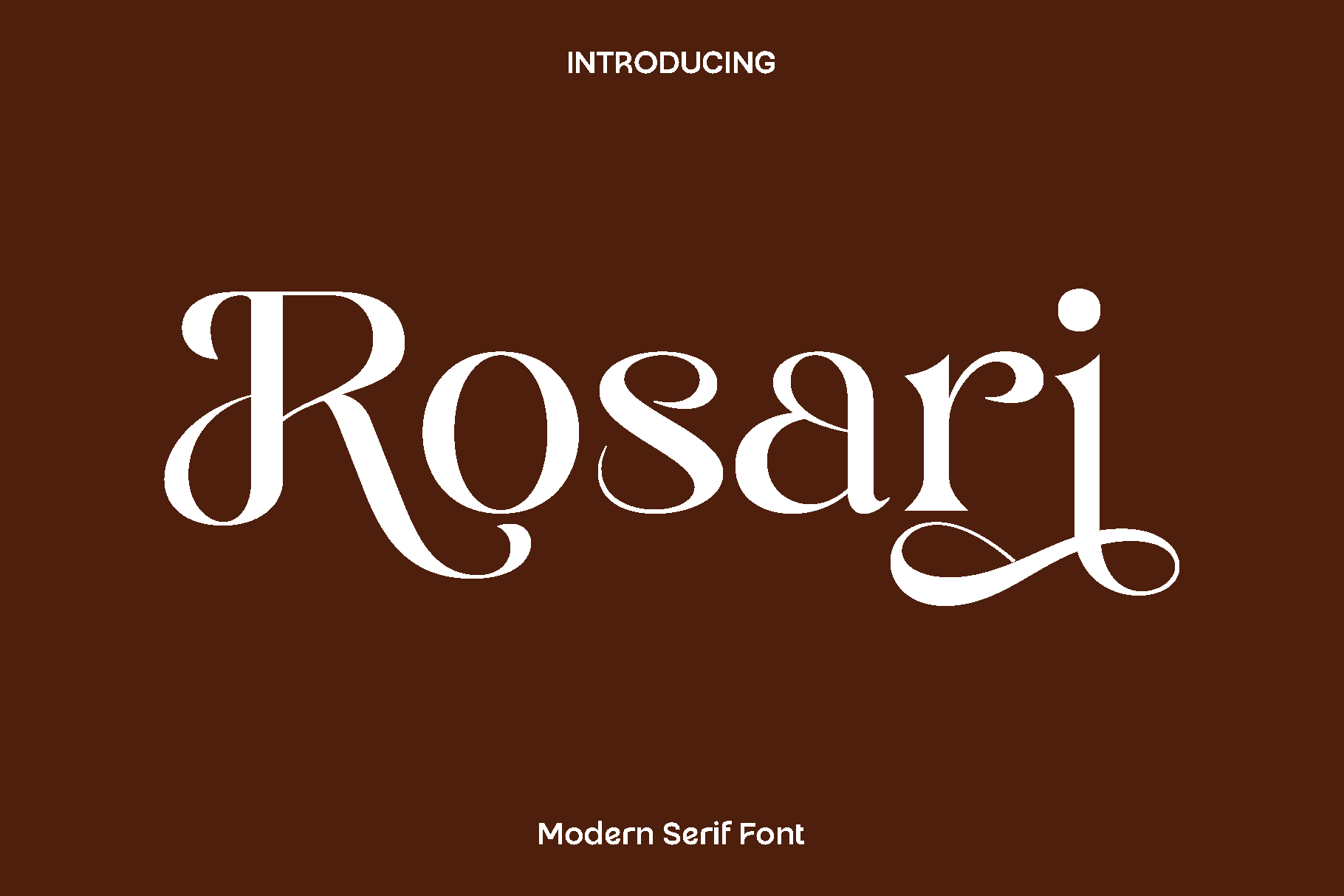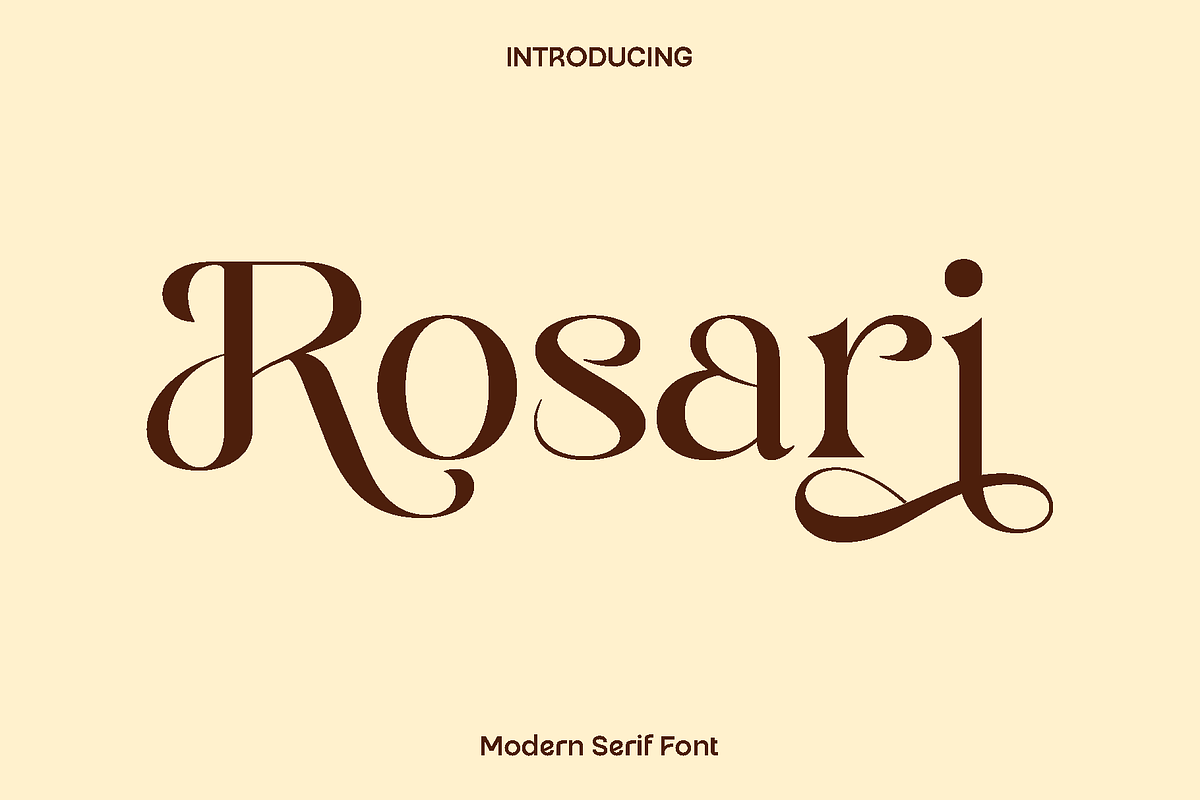
Rosari Serif Font
Rosari is an elegant and versatile font designed to bring style and sophistication to a wide range of creative projects. Its carefully crafted letterforms combine readability with aesthetic appeal, creating a timeless look that feels modern yet classic. Rosari’s clean lines and balanced proportions make it ideal for both large display text and subtle typographic details, offering designers the flexibility to use it in many contexts.
This font excels in branding, logo design, book and magazine layouts, blog headers, posters, advertisements, and inspirational quotes. Its graceful style ensures that your designs are polished and professional while maintaining a friendly and approachable personality. Rosari’s versatility allows it to adapt beautifully to digital and print applications, making it a reliable choice for both creative and commercial projects.
Rosari Font Features:
• Uppercase and lowercase letters
• Numerals included
• Functional punctuation and symbols
• Multilingual support
Rosari combines beauty, flexibility, and functionality, making it an essential addition to any designer’s toolkit. Its elegance elevates your projects, leaving a lasting impression wherever it is used.